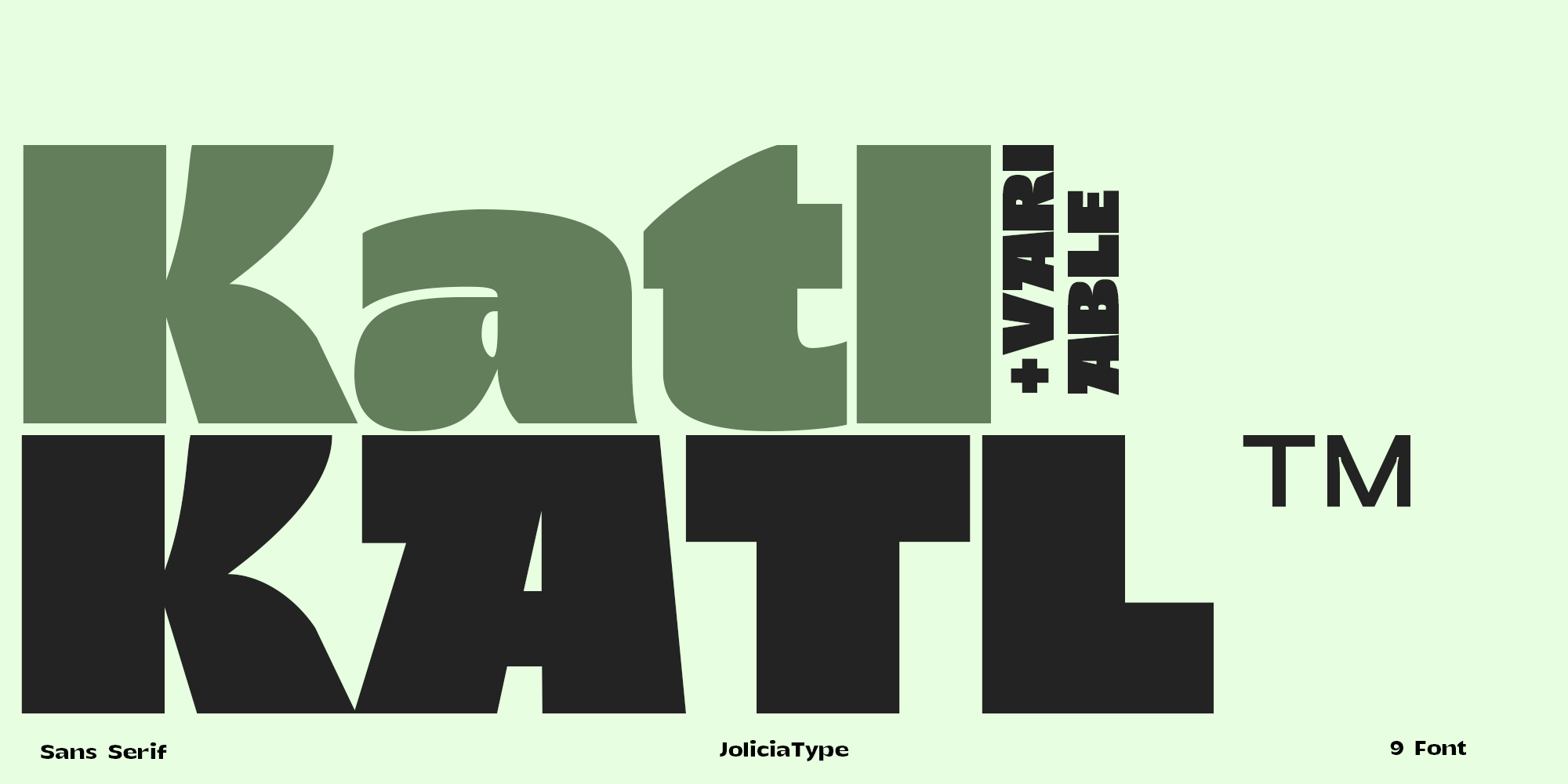
Katl Font is perfect for Scandinavian design projects, Nordic brand identities, minimalist architectural presentations, contemporary furniture catalogs, modern lifestyle magazines, clean tech company materials, sustainable product packaging, hygge-inspired wellness branding, Nordic cultural events, and sophisticated design studio portfolios.
Katl Font is exciting because it embodies the essence of Nordic design philosophy through its clean, purposeful letterforms that capture the simplicity and functionality of Scandinavian aesthetics while delivering messages with understated elegance and timeless sophistication.
Katl Font family includes Regular, Bold, Light, Medium, Italic, Condensed, Extended, and Ultra-Light variations, offering designers a complete Nordic-inspired toolkit to create serene visual communications that honor Scandinavian design principles of functionality and beauty.
Katl Font represents the pinnacle of Nordic design sensibility and sustainable thinking, making it an essential choice for brands and organizations that embrace minimalist philosophy, environmental consciousness, and the Scandinavian approach to balanced living. This thoughtful typeface brings calm sophistication to any design project, whether you're developing sustainable brand identities, creating wellness platform materials, or designing contemporary furniture catalogs. The harmoniously balanced character proportions of Katl Font Free Download ensure exceptional readability while maintaining the serene aesthetic that reflects Nordic values of simplicity, functionality, and mindful design.
Design industry professionals consistently choose Katl Font for furniture companies, architectural firms, and lifestyle brands because of its ability to communicate quality, sustainability, and thoughtful craftsmanship. The font's peaceful appearance makes it particularly effective for targeting consumers who value mindful consumption and appreciate design that prioritizes both beauty and environmental responsibility.
Katl Font excels in wellness and sustainability applications where authenticity and mindfulness are paramount. Eco-friendly brands, meditation platforms, and sustainable lifestyle companies rely on this font to create materials that reflect their commitment to environmental stewardship and conscious living practices.
The hospitality and retail sectors have embraced Katl Font for boutique hotels, sustainable fashion brands, and wellness-focused establishments. Its tranquil visual character helps businesses create experiences that communicate Nordic values of balance, quality, and respect for natural beauty, appealing to consumers seeking authentic, environmentally conscious lifestyle choices.